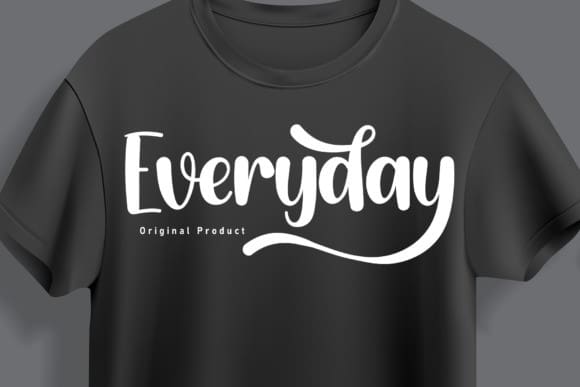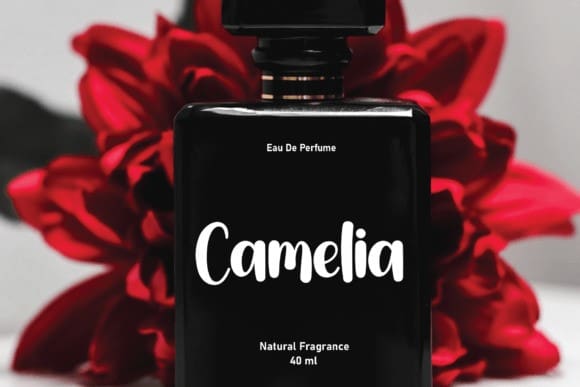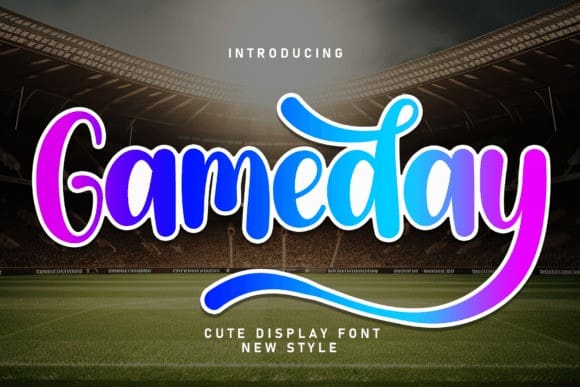
Gameday Script Font
Gameday Script Font is a sweet and friendly handwritten font. Its natural and unique style makes it incredibly fitting to a large pool of designs. The only limit is your imagination!